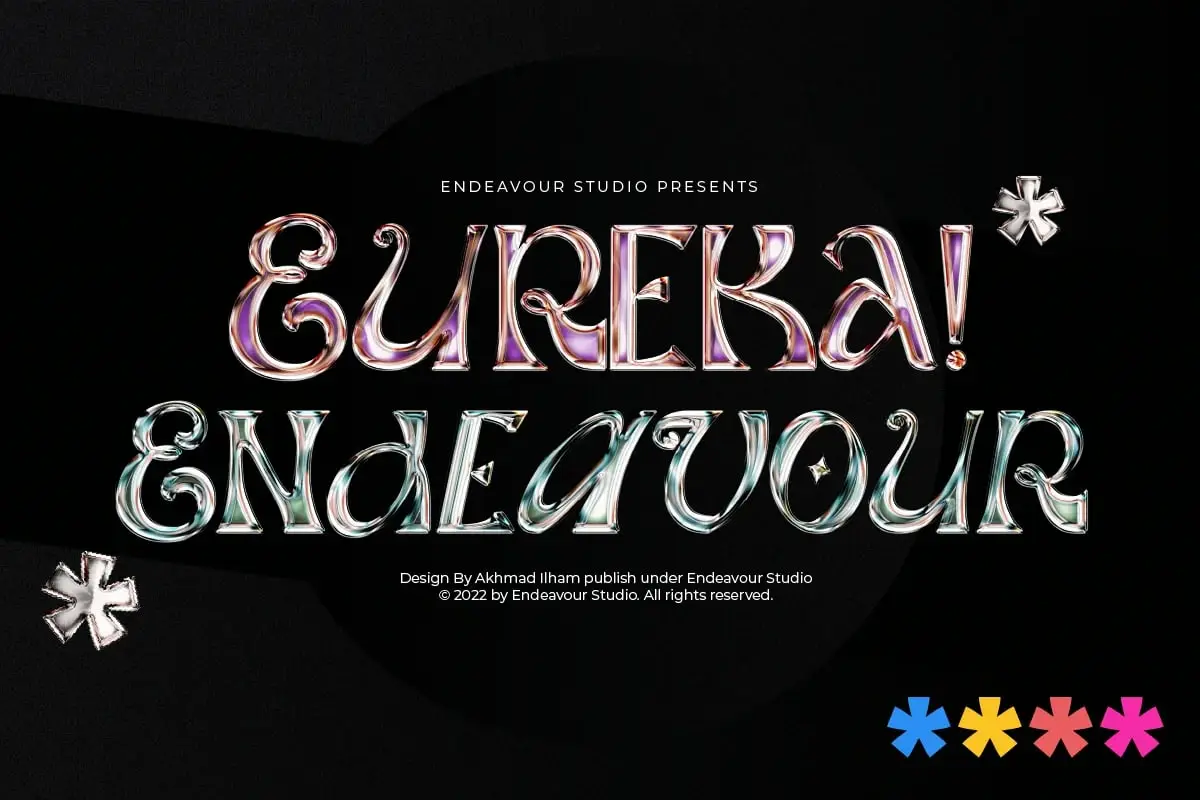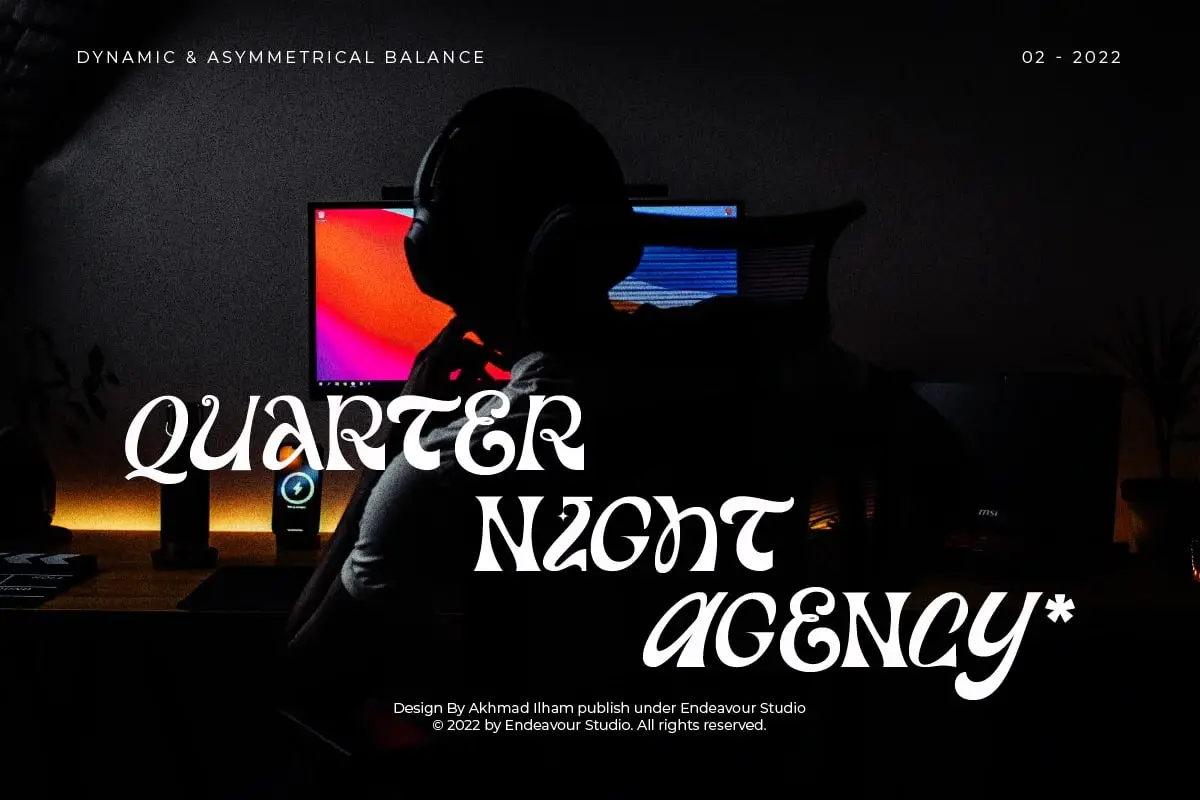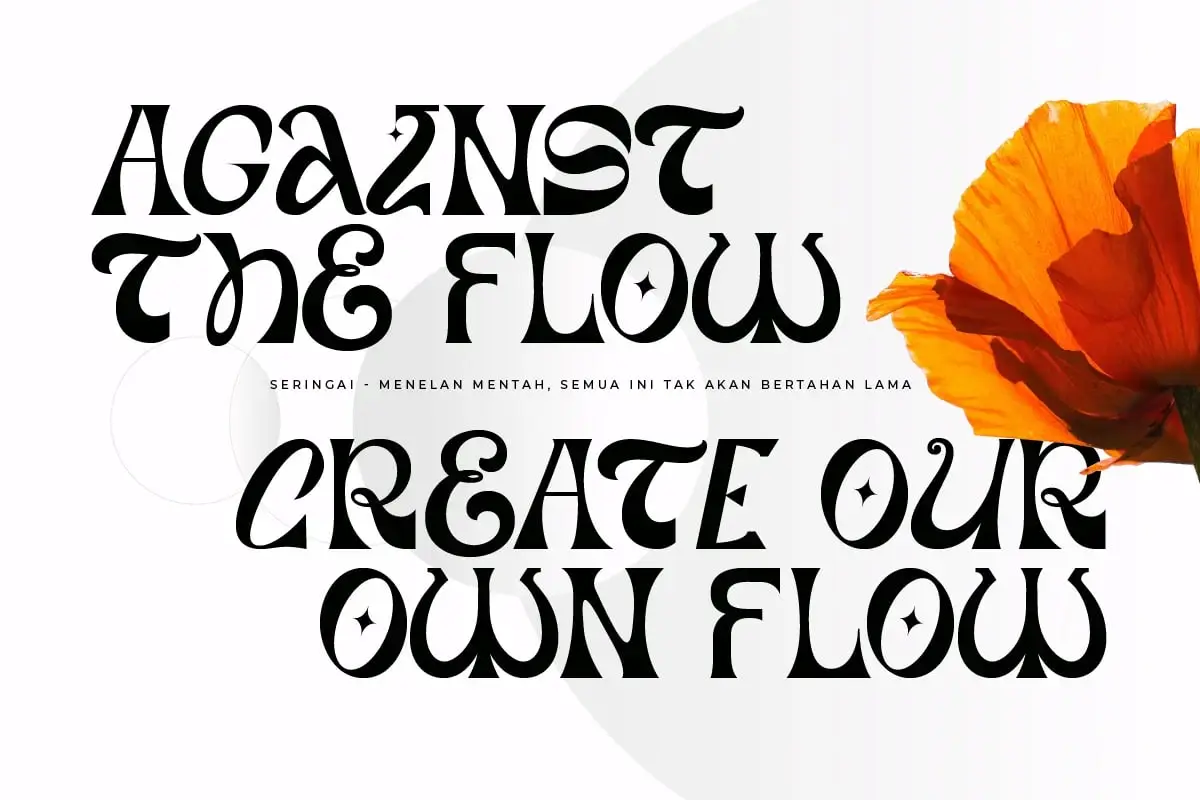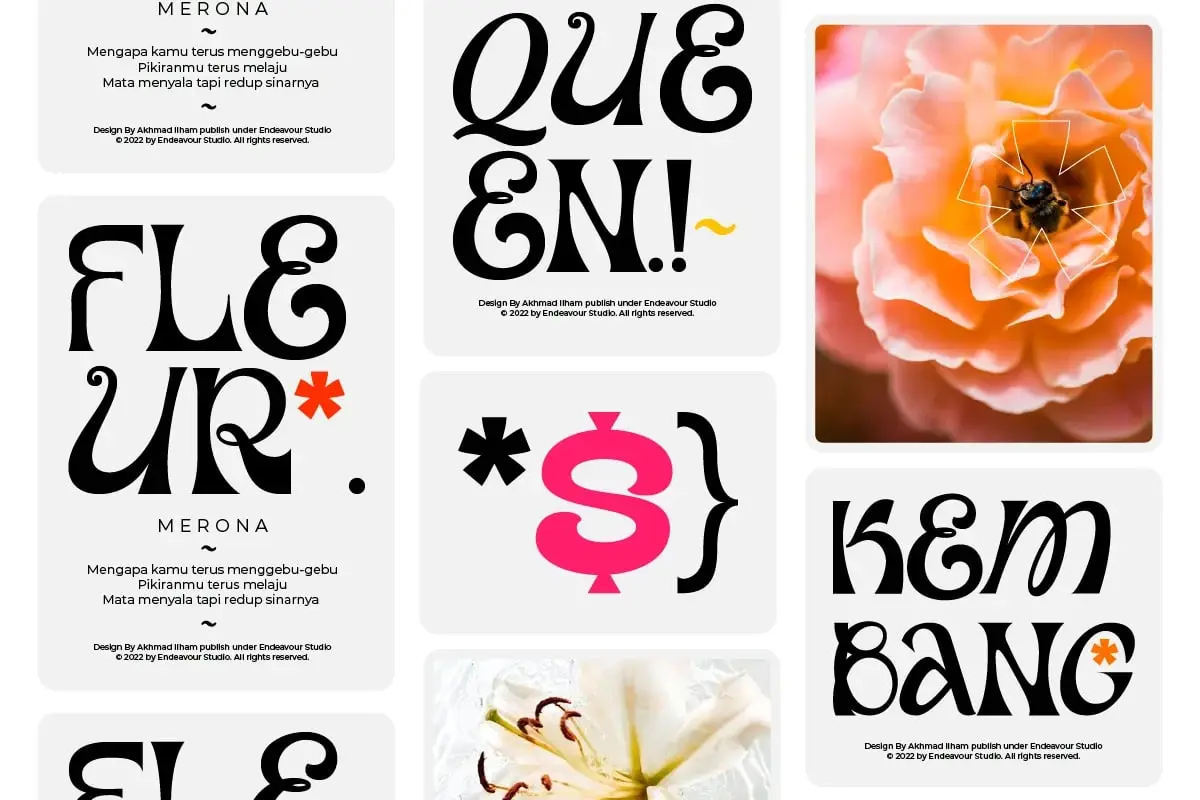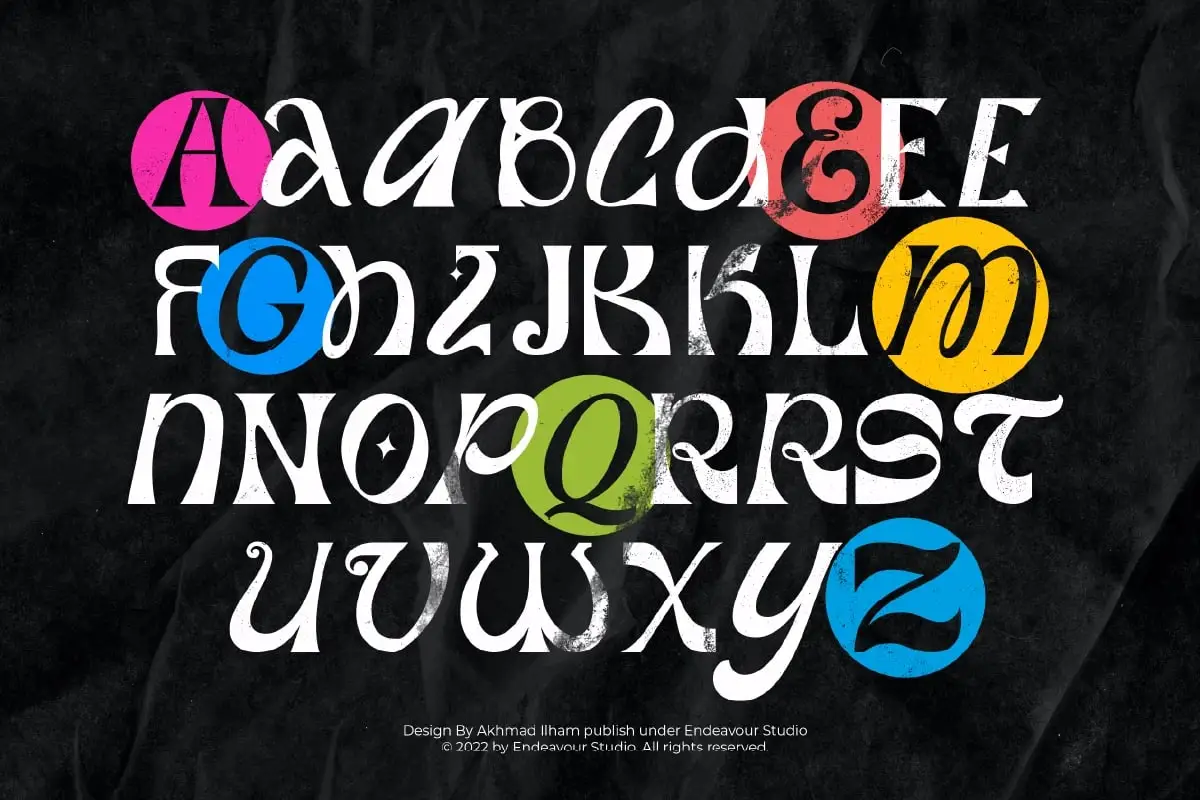
Eureka Serif Display Font By Endeavour Studio
The Eureka Serif Display Font by Endeavour Studio is a stunning typeface designed to make a statement. With its elegant serif features, this font is perfect for a variety of applications, including branding, logos, and print materials.
• Ideal for headlines and titles where you want to grab attention.
• Use in both digital and print media for a cohesive brand identity.
• Pair with sans-serif fonts for a modern contrast.